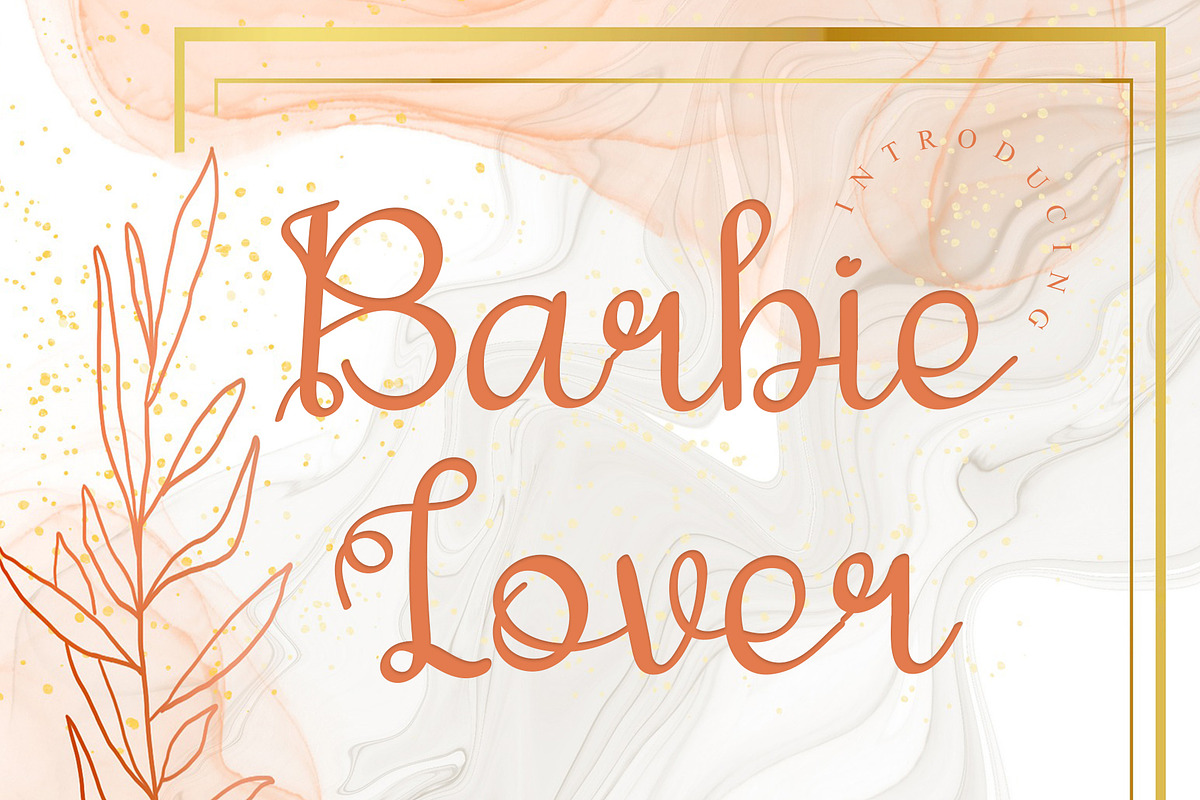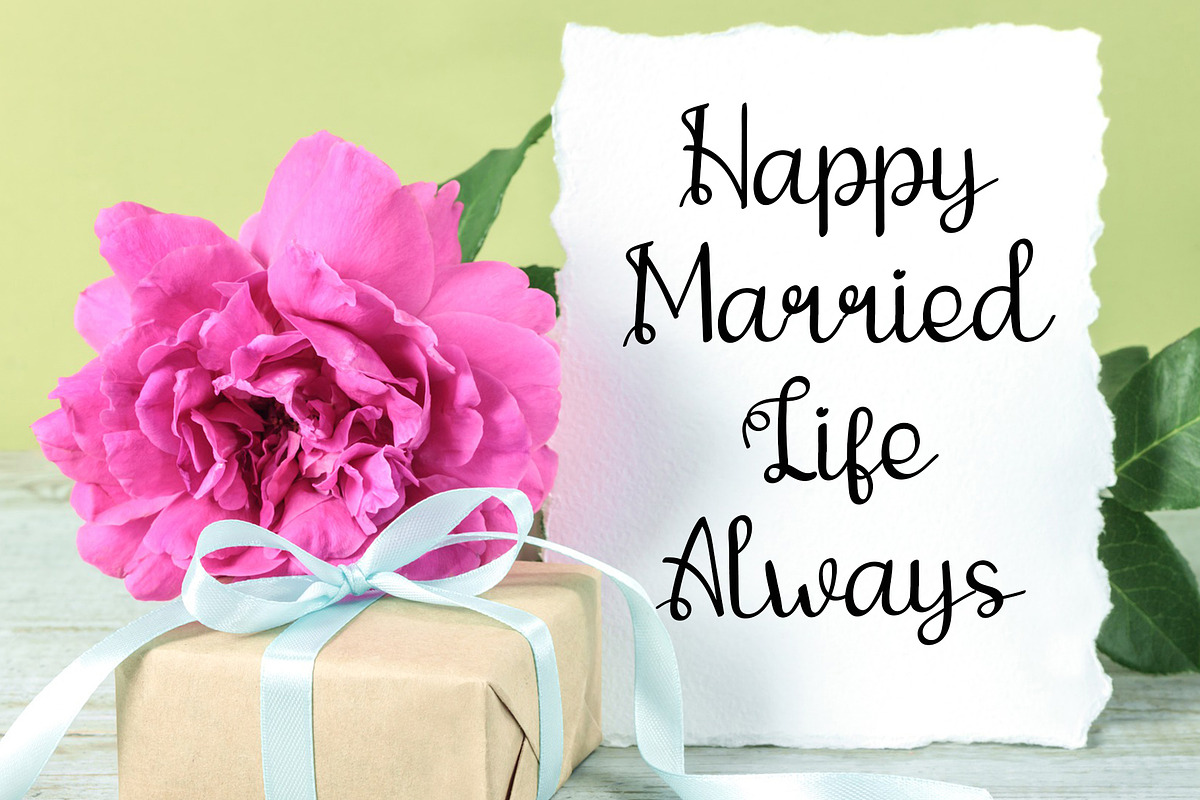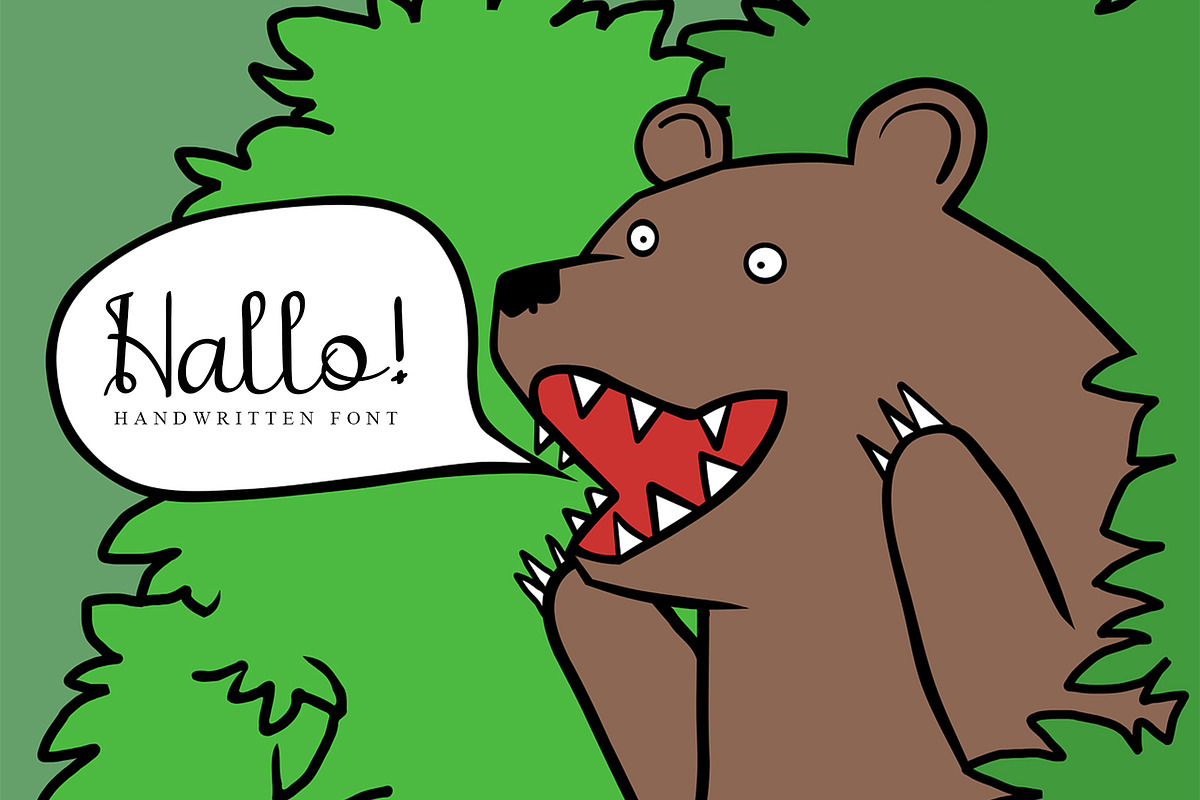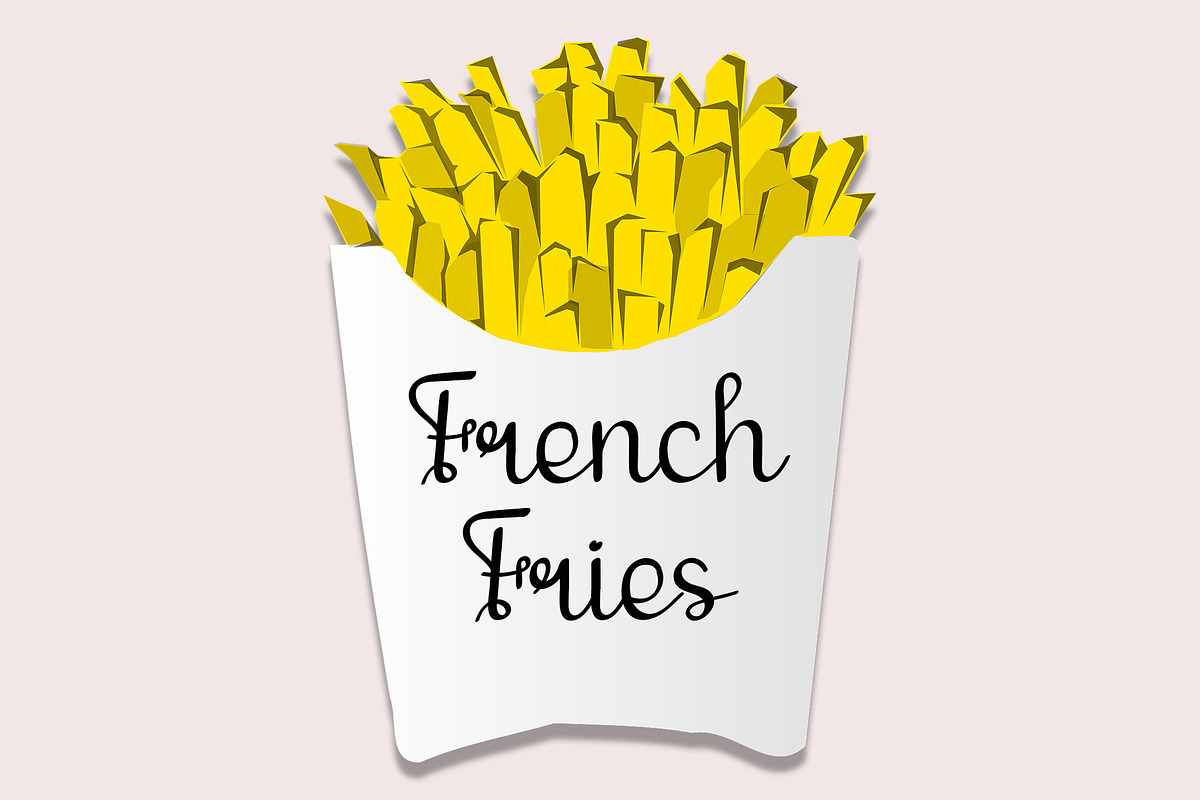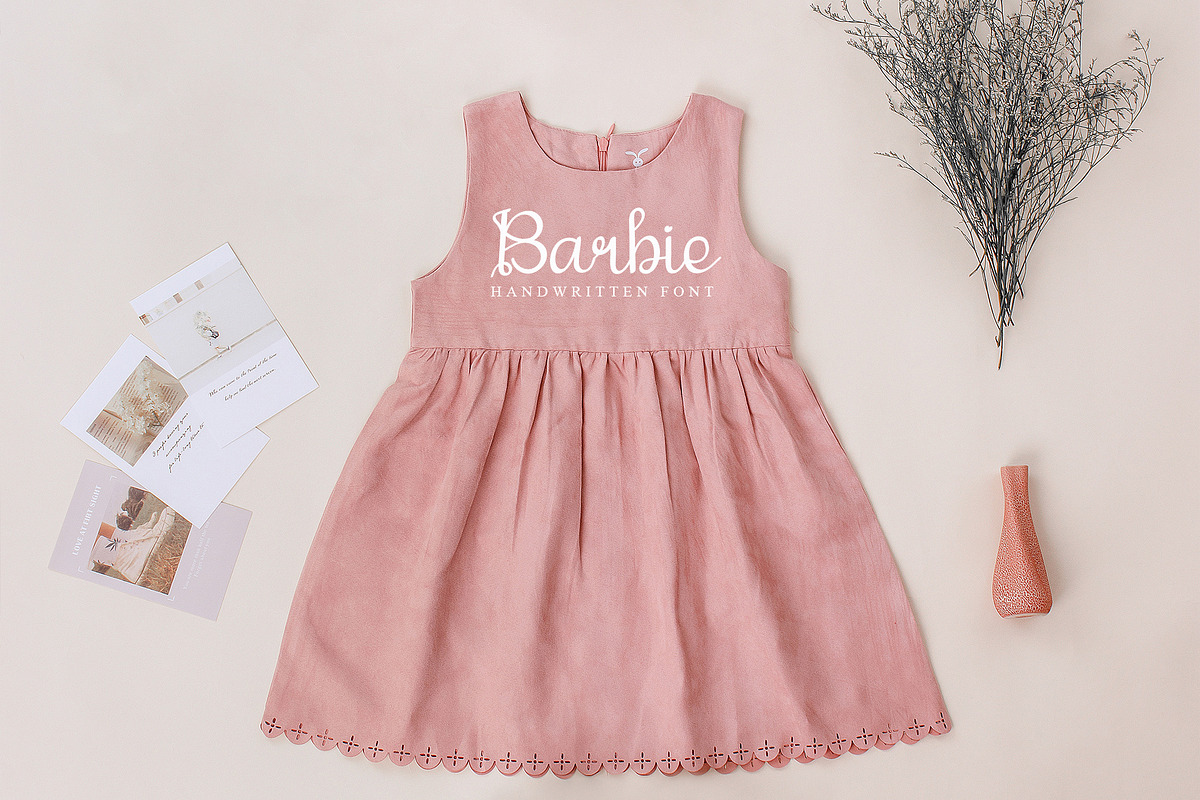
Barbie Lover
Barbie Lover is a unique and elegant font, perfect for use on invitation cards, greeting cards, party events, billboards, logos, business cards and any other design that requires a handwritten touch. This font features varied baselines, fine lines, beautiful glyphs and makes your ideas look exquisite and complementary to your work. This font is PUA encoded which means you can access all glyphs and swashes with ease!